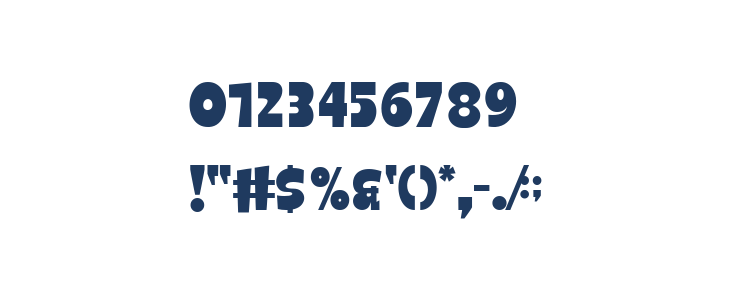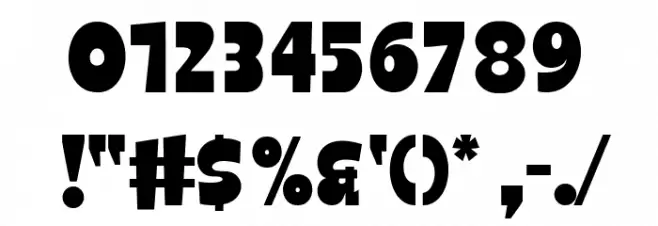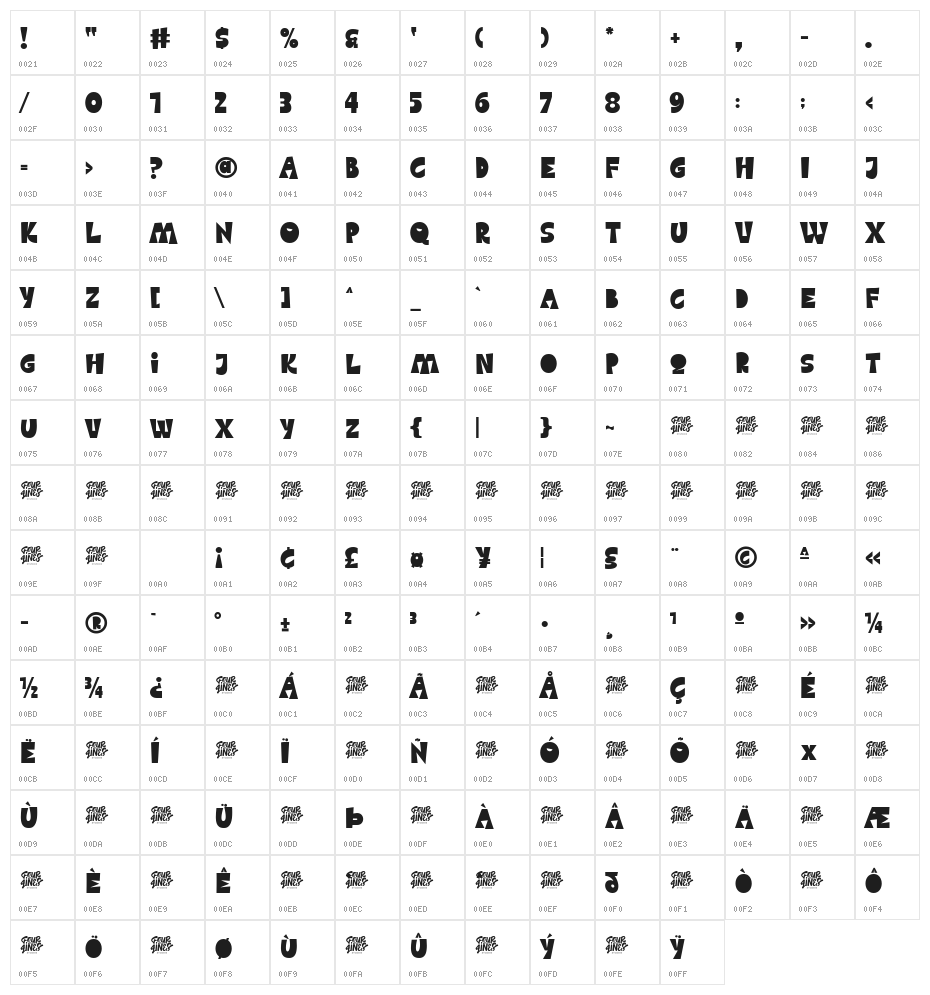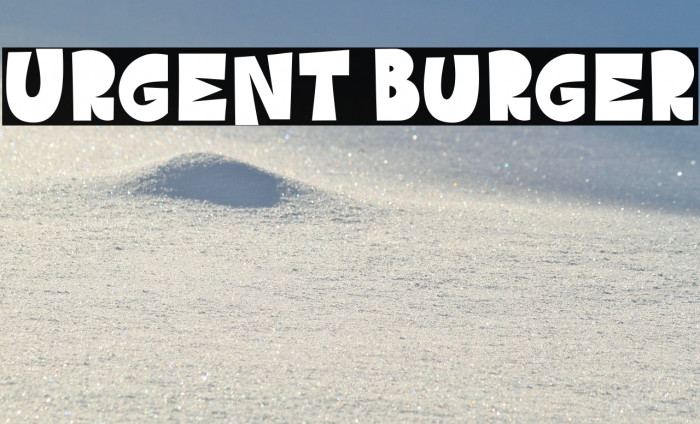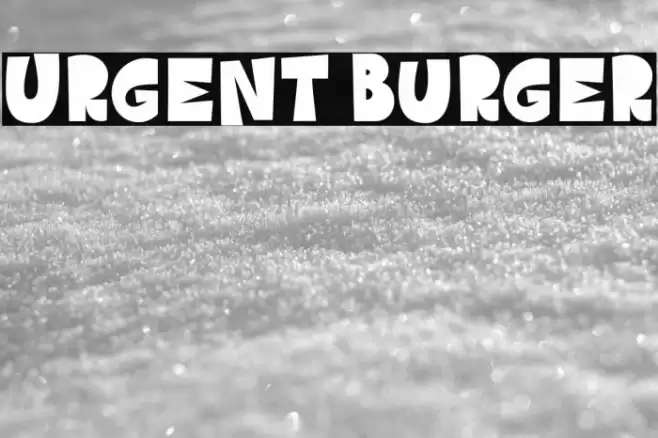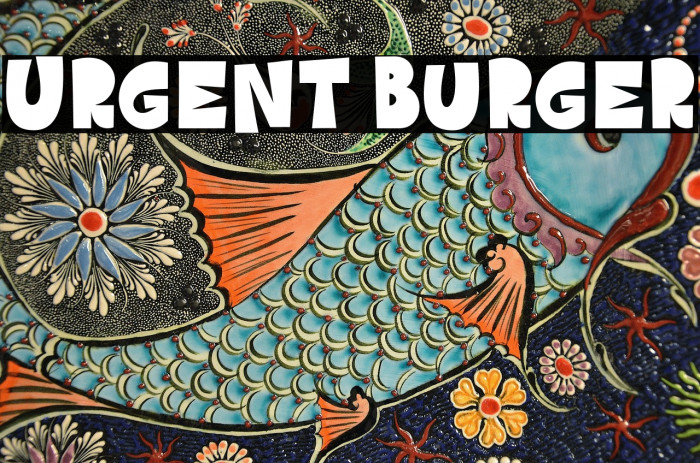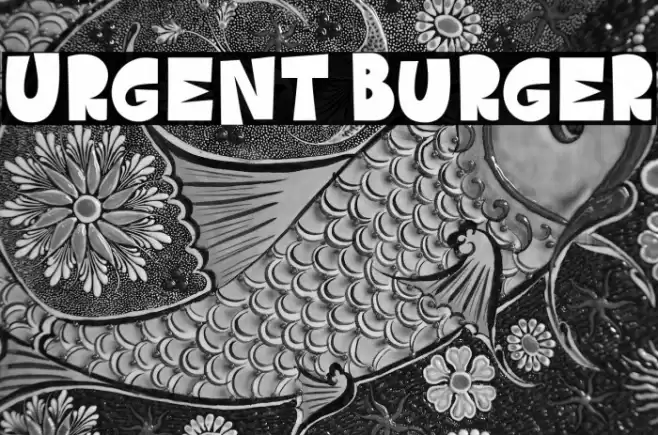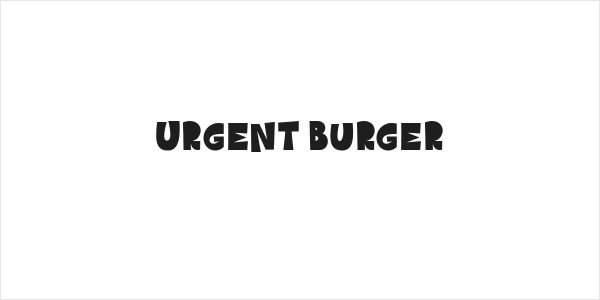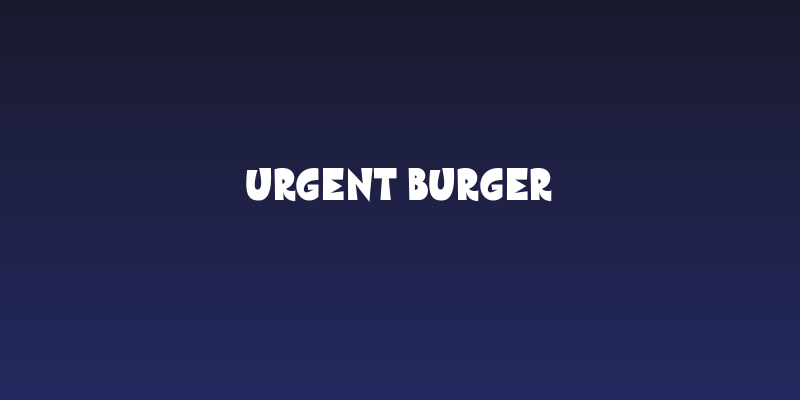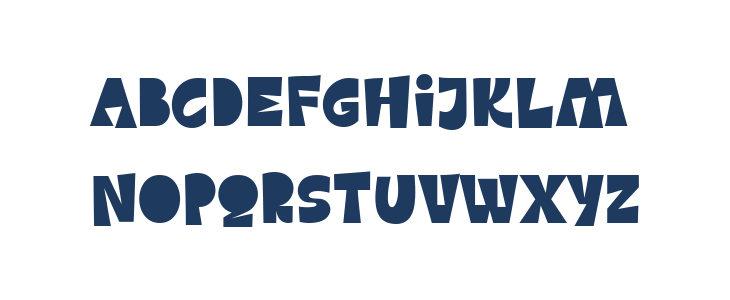
Urgent Burger Font
Urgent Burger Description
This font features bold, geometric shapes with a playful and dynamic style. The letters are characterized by sharp angles and thick strokes, creating a strong visual impact. The design incorporates a mix of straight lines and curves, giving it a unique and modern appearance. The uppercase and lowercase letters maintain a consistent style, with some characters featuring distinctive cutouts and asymmetrical elements. The numerals and special characters are equally bold and follow the same geometric theme, making them stand out prominently.
| Proposed Projects | Ideal for branding, posters, and headlines that require a strong visual impact. |